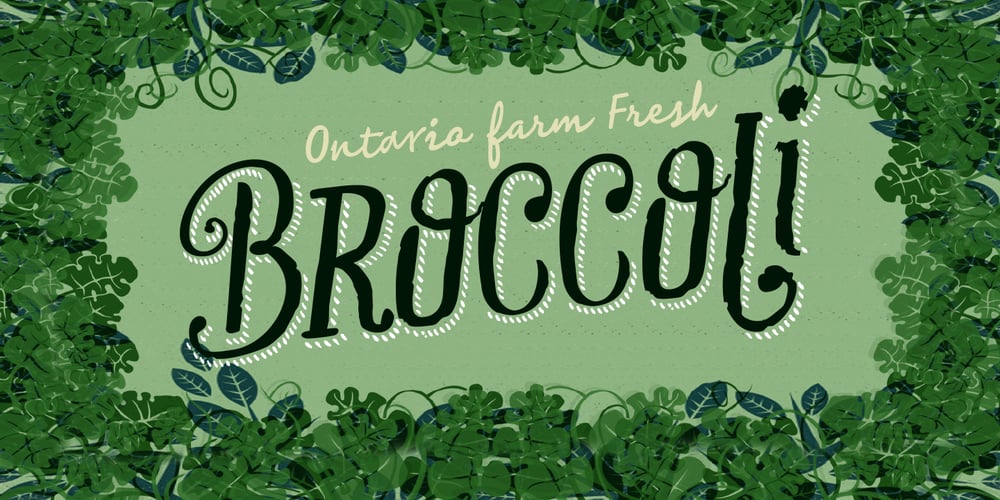
Infusion
Infusion font
Infusion Font Family was designed by Carlos Fabián Camargo Guerrero, Fabio Eduardo Godoy and published by Andinistas. Infusion contains 6 styles and family package options. Infusion is a type family designed by CFCG & Fabio Godoy for andinistas.net. The creative process of Infusion evolved throughout a myriad of experiments supported by my font gluten This is why its expressivity comes from the addition and subtraction of its parts by mixing and combining, resulting in a great variety and new versatility of uppercase, lowercase, multiple and different numbers to be applied at the beginning, middle or end of the word. Infusion is used to write sentences in craft contexts that require organic graphic design, with meticulous imperfect look. Infusion offers typographic solutions out of the limits, or out of borders that divide the mechanics of the drawn by hand. Infusion has 6 decorative and legible fonts to write casual messages with organic, friendly and natural personality. Infusion “Script, Mix, Roman, Shadow, Extras, Dingbats” contain unconventional visually appealing ideas to work independently or in group in the design of logos, packaging, presentations, headlines or editorials.